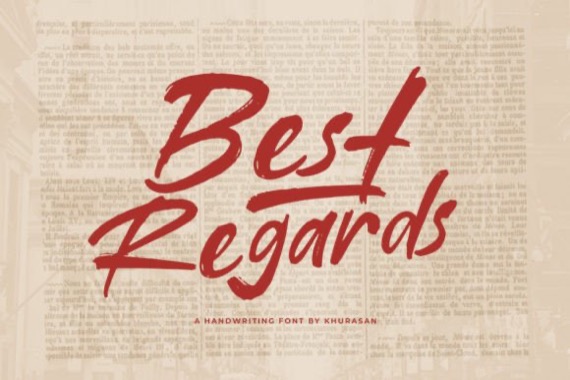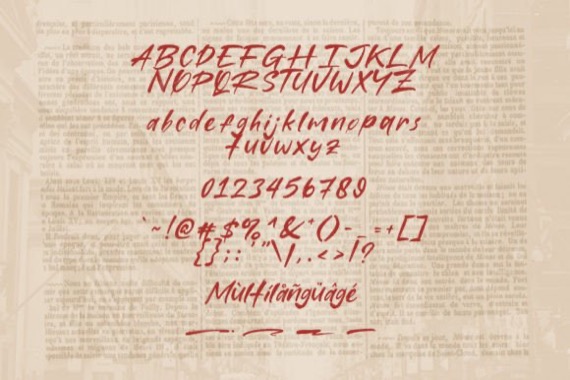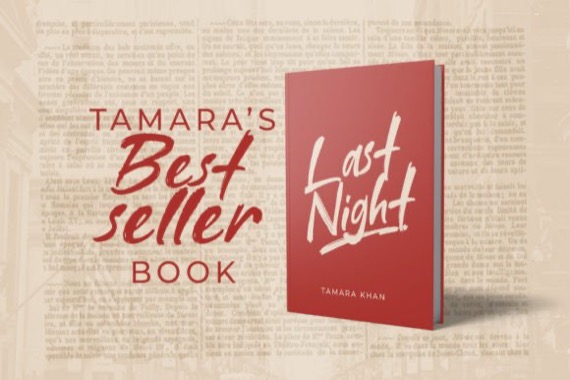
Proudly introducing a new classy handwritten brush typeface from Khurasan, Best Regards is a clean, stylish, modern, and elegant script font perfect for posters, logos, magazines, book covers, banners, and many more! Get this amazing font, and use it to create lovely designs. It can easily be matched to an incredibly large set of projects, so add it to your creative ideas and notice how it makes them stand out!
Best Regards Brush Font